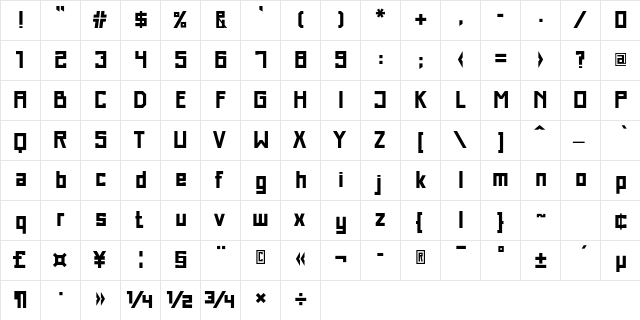
Just Square LT Std Cyrillic Bold
| Foundry | Linotype GmbH |
| Designer | Zoran Kostic |
Design Context for Just Square LT Std Cyrillic Typeface
Just Square LT Std Cyrillic is a composed and adaptable typeface that performs quietly and consistently across a wide range of design contexts. The heavy weight commands attention and anchors typographic hierarchies.